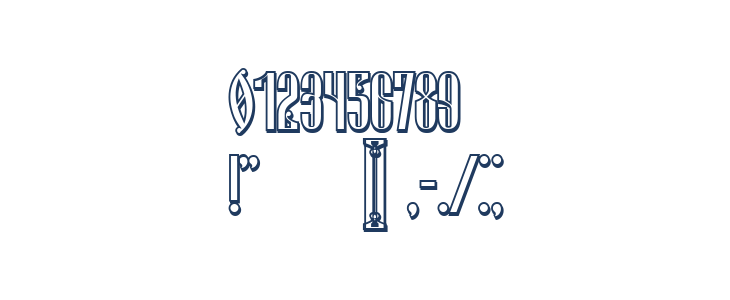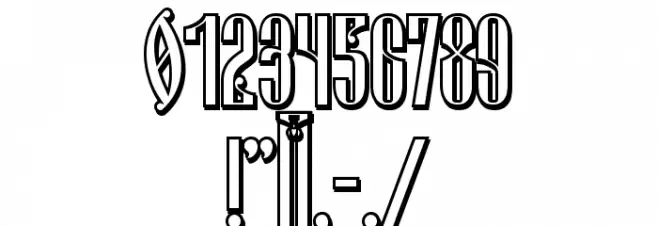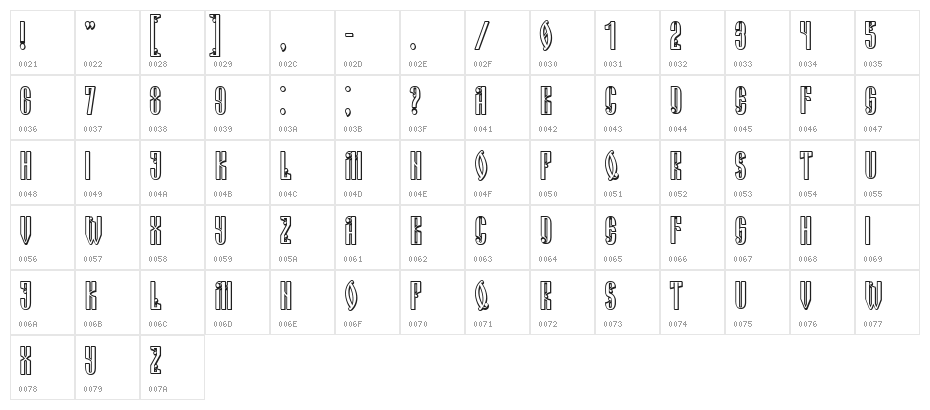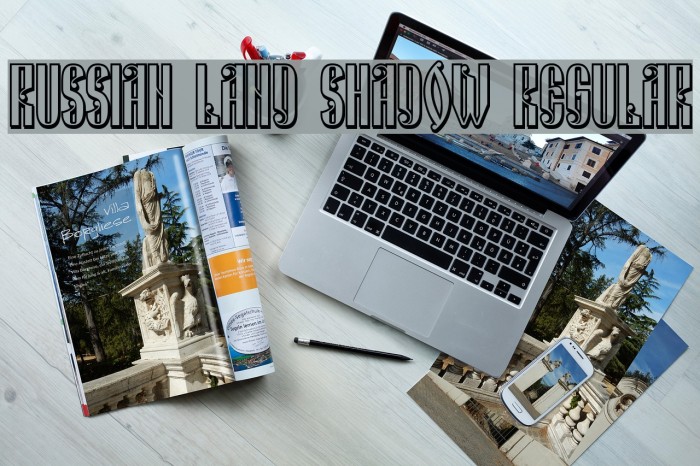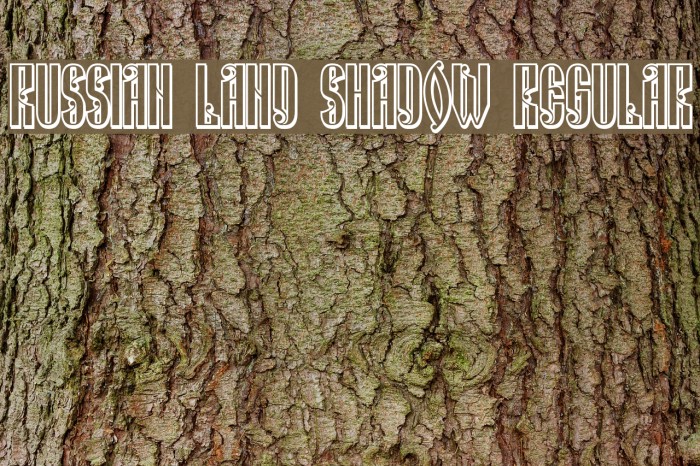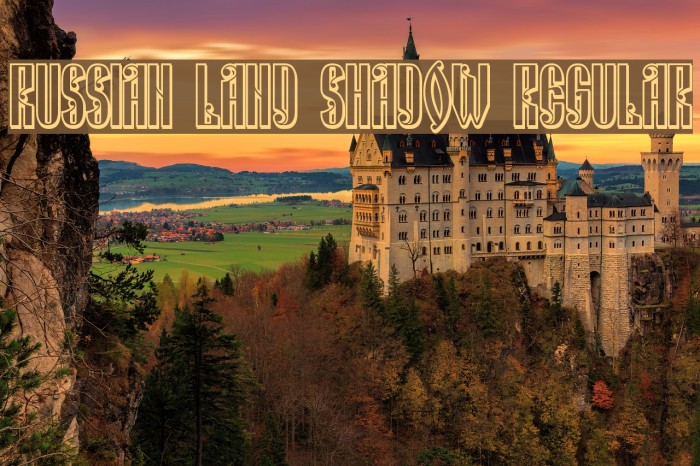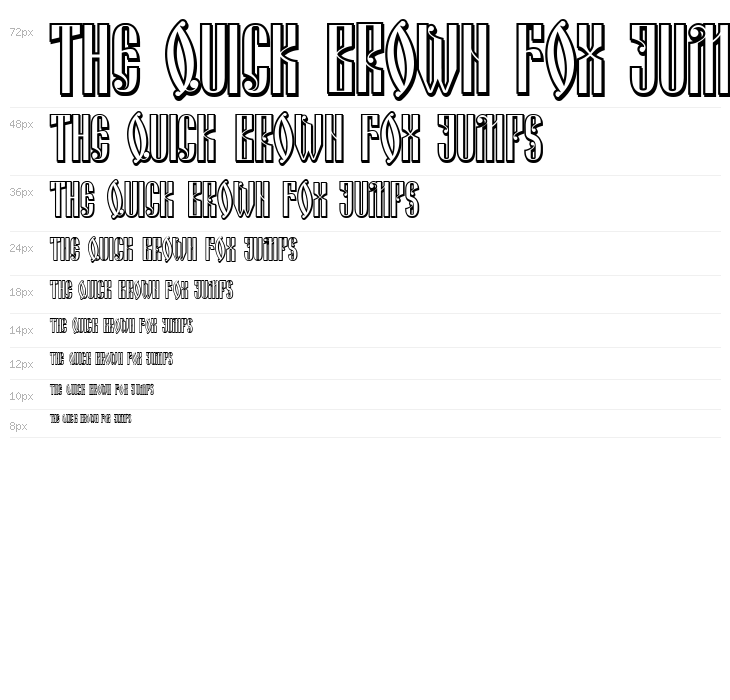
Russian Land Shadow Regular Font
Russian Land Shadow Regular Description
This font features a bold, decorative style with intricate shadow effects that give it a three-dimensional appearance. The characters are tall and narrow, with unique embellishments that add a sense of elegance and complexity. The uppercase letters are particularly striking, with ornate curves and lines that create a dramatic visual impact. The numbers and special characters maintain the same decorative theme, ensuring consistency across all glyphs. This font is ideal for projects that require a strong visual presence and a touch of sophistication.
| Proposed Projects | Ideal for posters, headlines, branding, and any design that requires a bold, eye-catching typeface. |